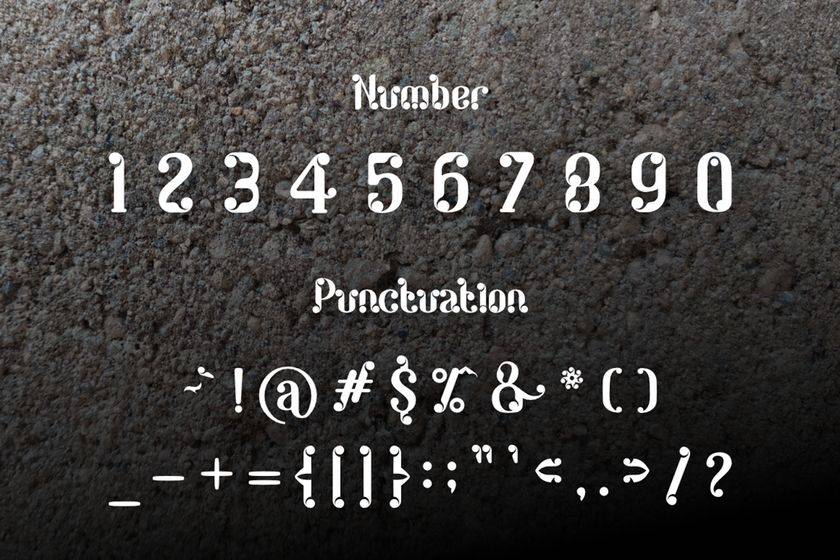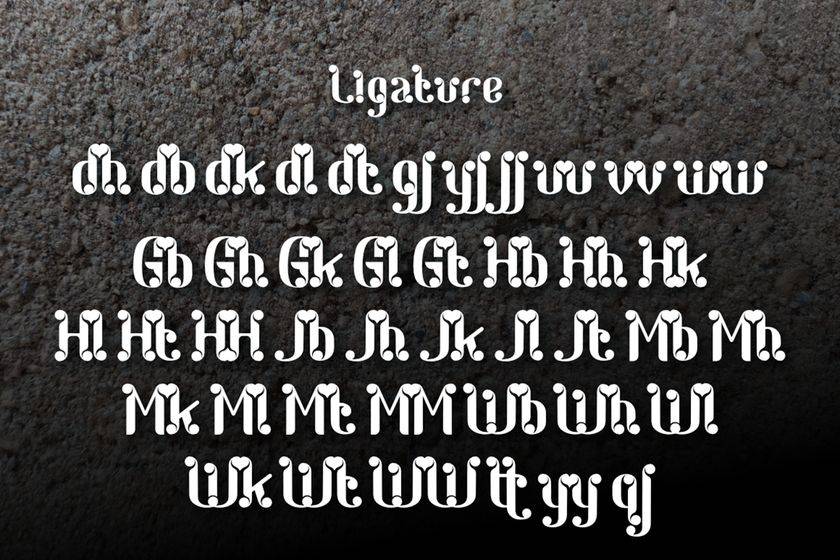
Ground Font is a bold, decorative serif typeface featuring strong contrast between thick and thin strokes with unique circular terminals that add a playful yet vintage character. Its tall, condensed letterforms and distinctive details make it perfect for eye-catching headlines, logos, and creative branding that seek a stylish, retro-inspired statement. This font brings a lively, artistic flair to designs while maintaining readability and strong visual impact.
Ground Font
About Ground Font
| Font family | Ground Font |
| Designer | Arvan Fatwa |